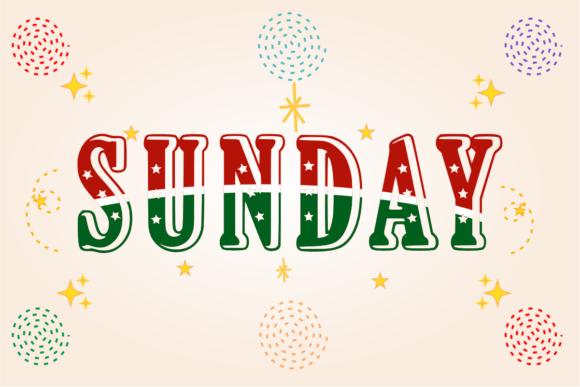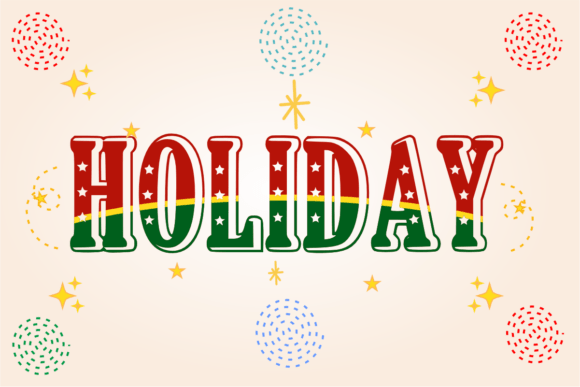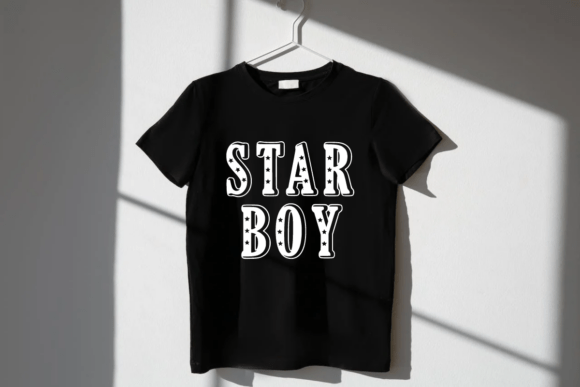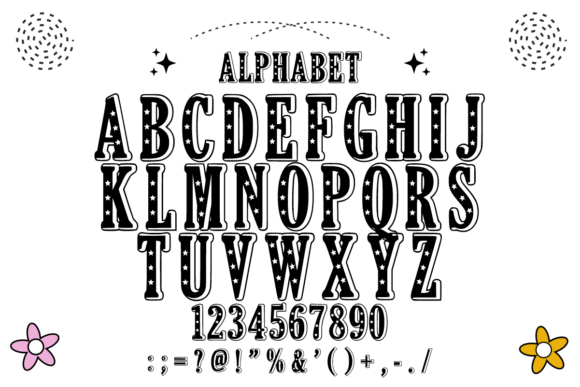
Introduction to Merry Star Font
Merry Star is an alluring and decorative typeface that magnificently encapsulates the festivity of the holiday season.
Its sleek strokes and understated charm effortlessly infuse a layer of elegance into your holiday-themed projects Ideal for creating inviting greeting cards, sophisticated invitations, or any design that encapsulates the essence of Christmas through an elegant lens.
Key Features of Merry Star Font
Why Choose Merry Star Font?
Merry Star Font offers exceptional quality and versatility, making it a valuable addition to your design toolkit. Whether you’re creating for personal projects or commercial use, Merry Star Font delivers professional results.